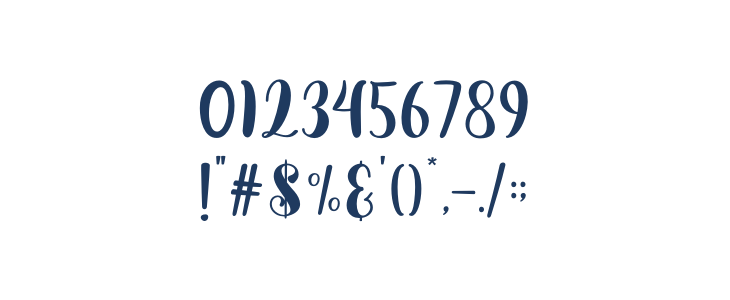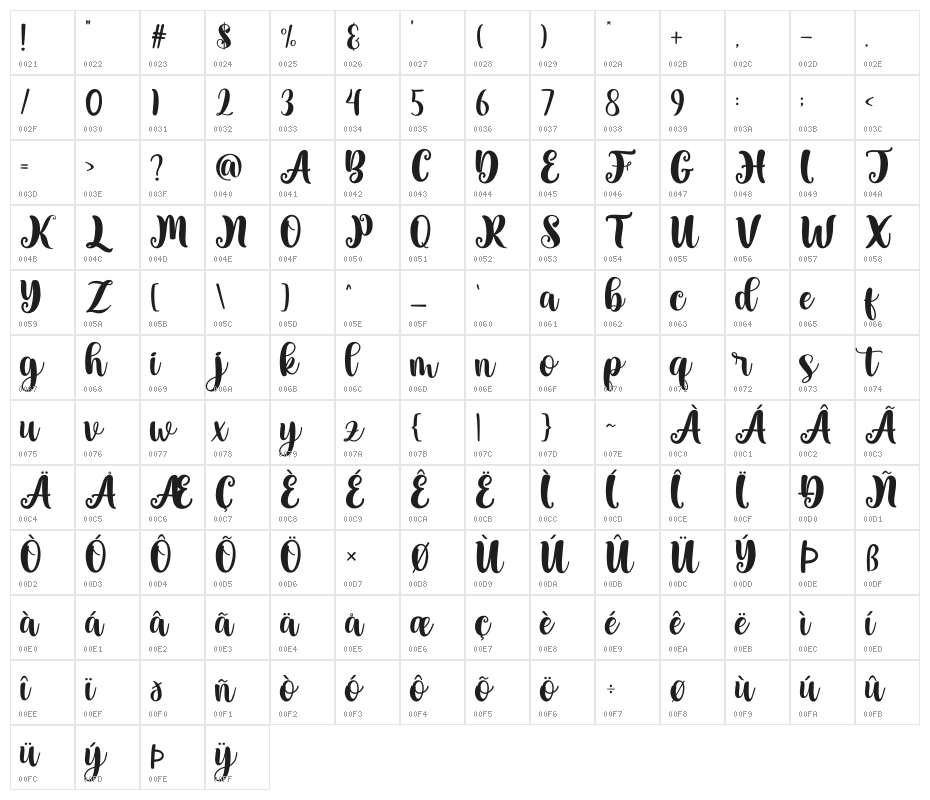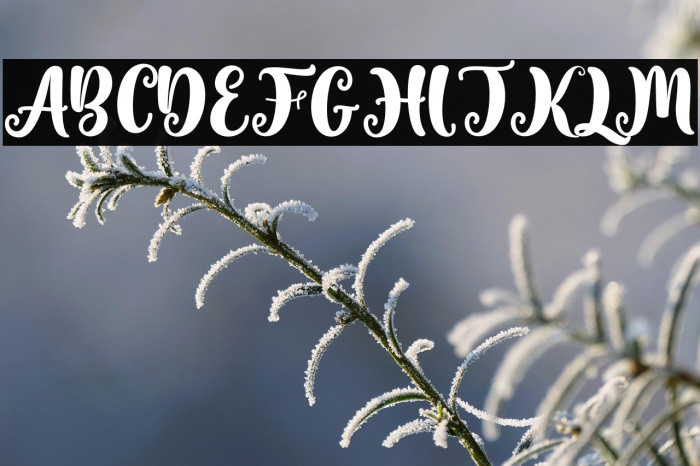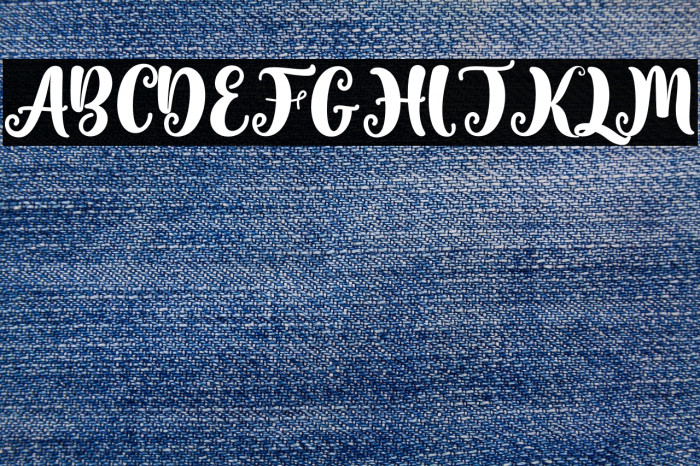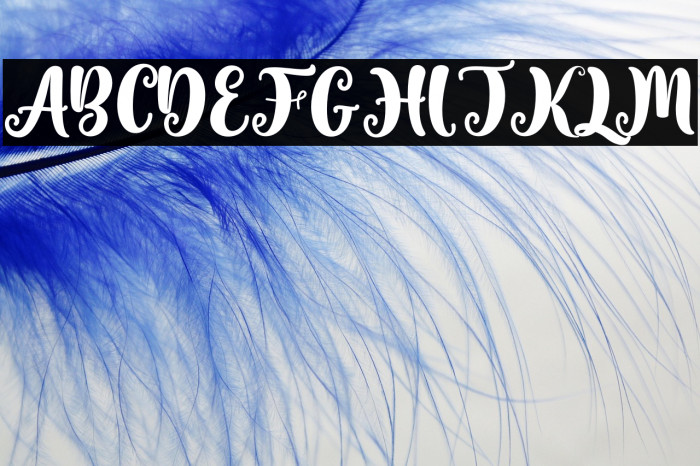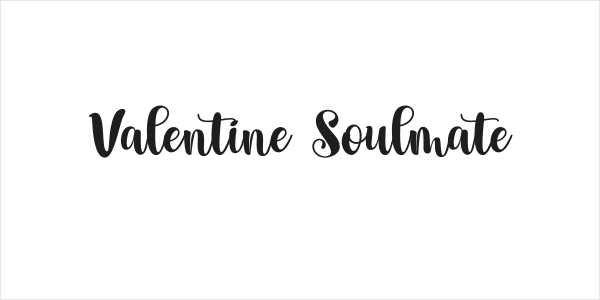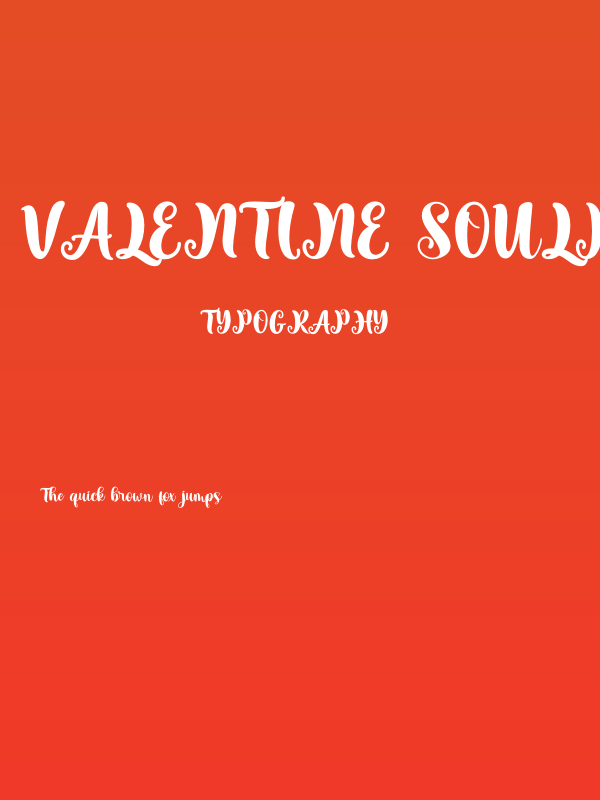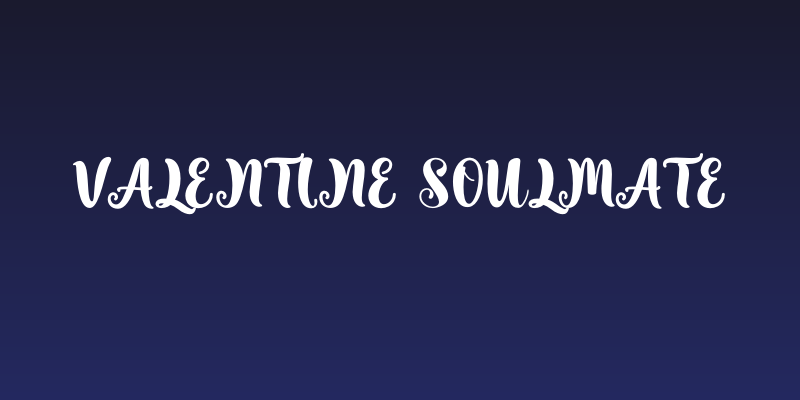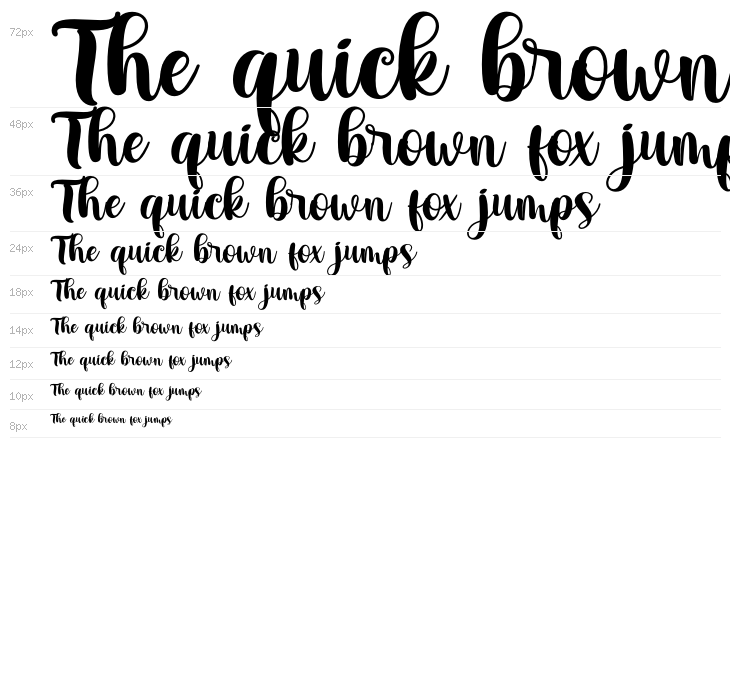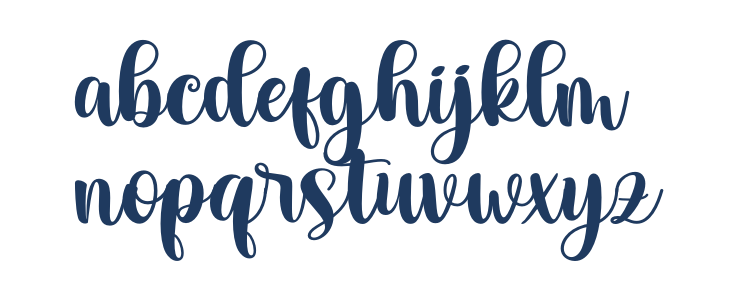
Valentine Soulmate Font
Valentine Soulmate Description
This font features a whimsical and romantic script style, characterized by its flowing, cursive letters and decorative swirls. The uppercase letters are bold and ornate, with elegant loops and flourishes that add a touch of sophistication. The lowercase letters maintain a consistent style, with smooth curves and a playful, handwritten feel. Numbers and special characters are designed to match the overall aesthetic, ensuring a cohesive look across all text. The font's thick strokes and high contrast make it stand out, perfect for eye-catching designs.
| Proposed Projects | Ideal for wedding invitations, greeting cards, branding, and romantic-themed designs. |